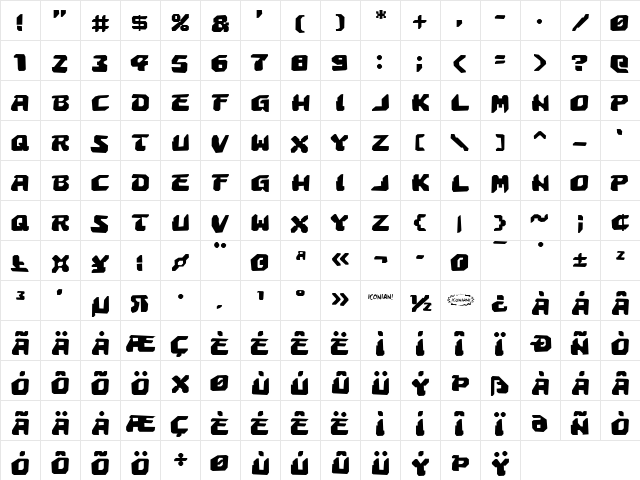
Astropolis Rough Regular
Design Context for Astropolis Rough Typeface
Astropolis Rough trades polish for personality, using distressed and eroded forms to bring grit and attitude to creative work.
Suited to punk-influenced zines, underground music branding, streetwear, and raw, anti-corporate design.
Pro Tip: Pair Astropolis Rough with intentionally raw or lo-fi design elements. Fighting against it with overly polished surroundings will undermine its personality.